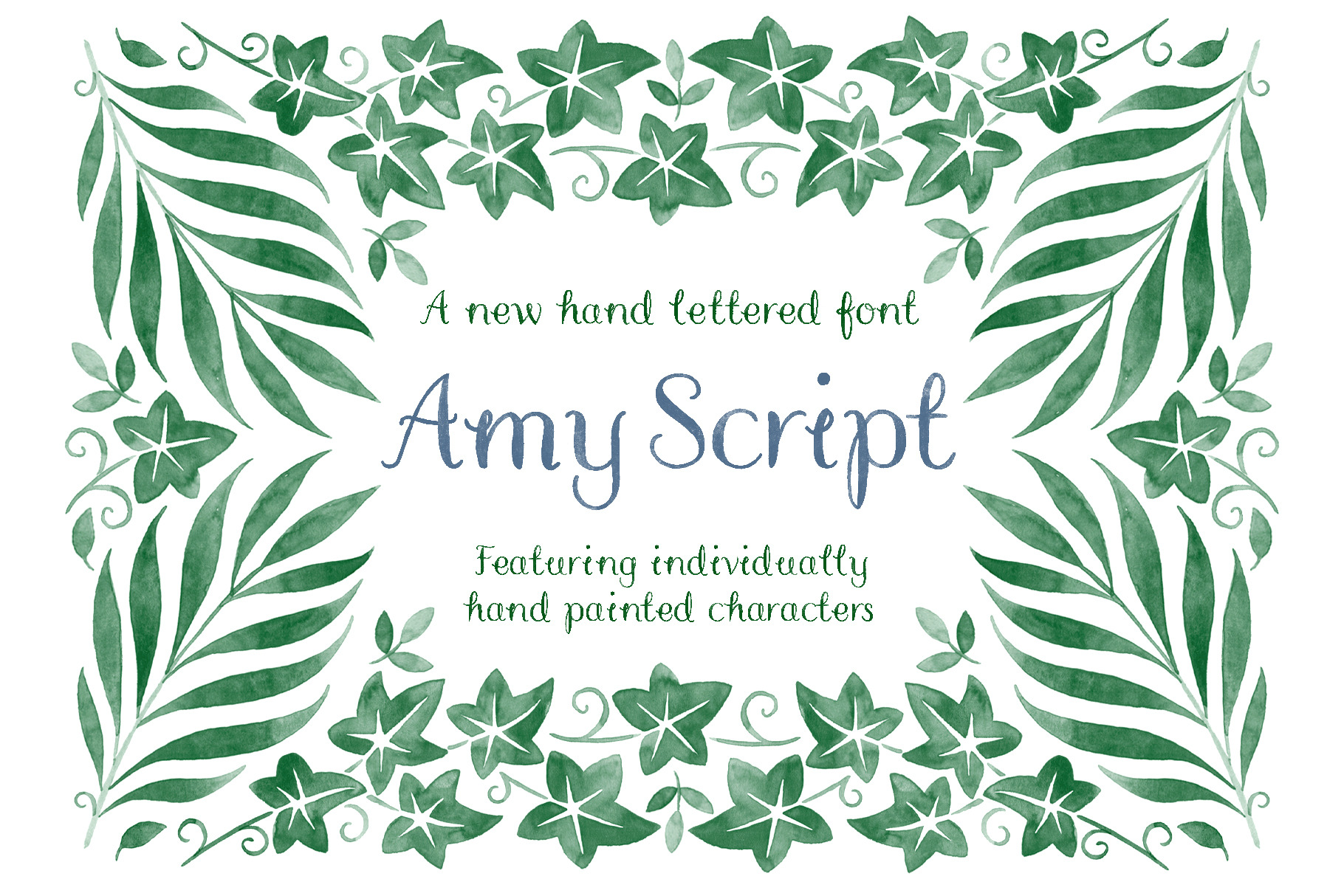
Amy Script Hand Lettered Font
A light and feminine hand lettered font, featuring individually hand painted characters with lovely hand painted textures.
Perfect for invitations, save the date cards, birth announcements, stationery projects, quotes and verses.